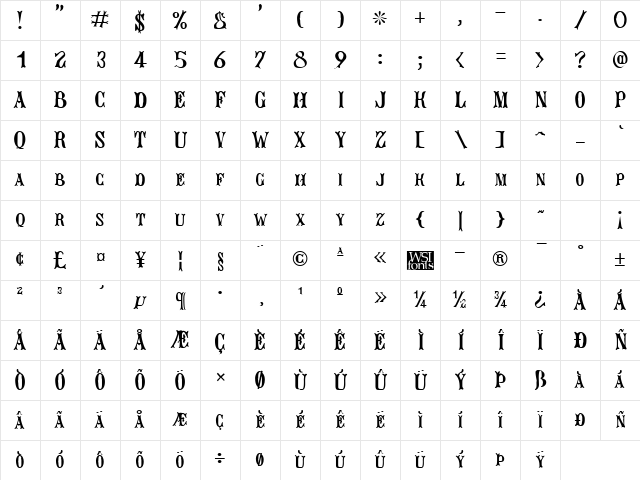
JacquesRoughcut Regular Free Font
JacquesRoughcut Regular
Design Context for JacquesRoughcut
JacquesRoughcut embraces imperfection - its rough, textured character adds raw authenticity to designs that want to feel lived-in and unconventional.
Pro Tip: Use JacquesRoughcut at larger sizes where the texture and irregularity of each letterform can be clearly seen - it loses its character at small sizes.